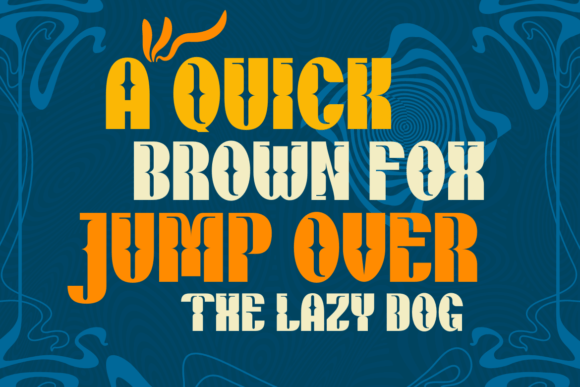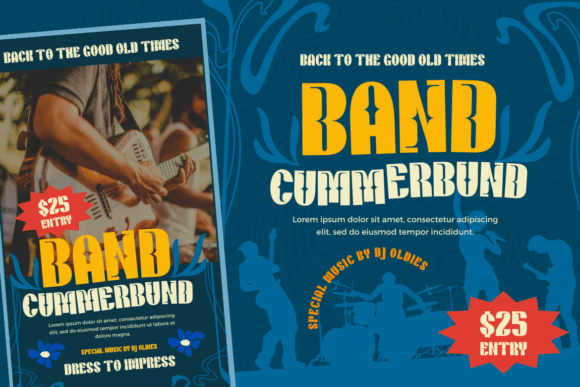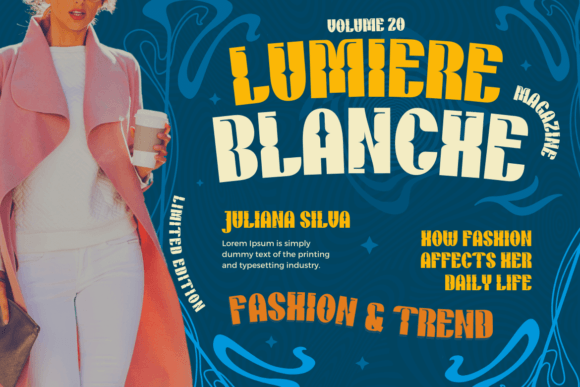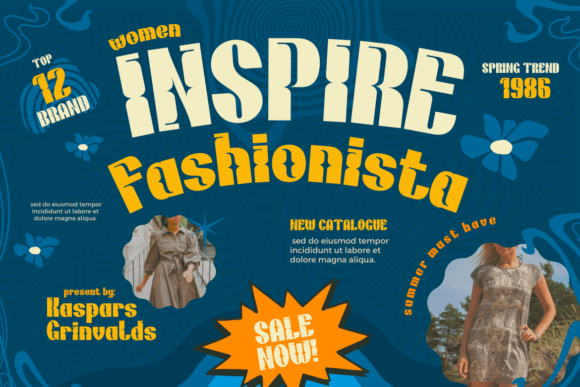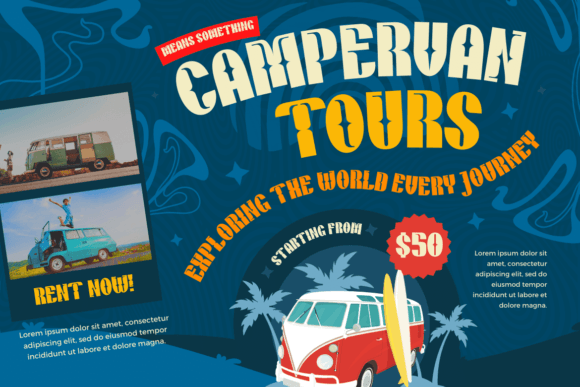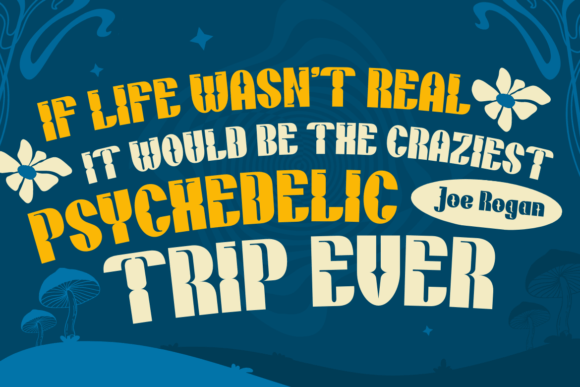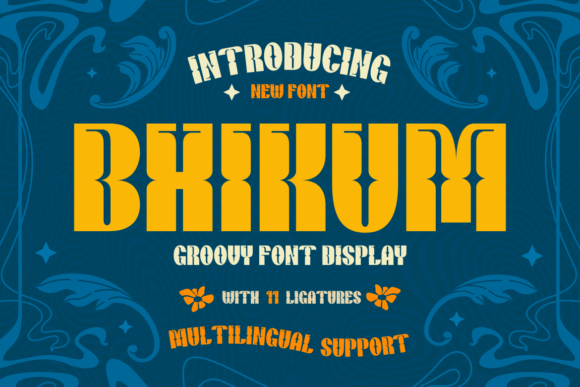
Bhikum Font: A Modern, Stylish, and Timeless Display Font
In the world of typography, fonts play a crucial role in conveying the tone and personality of a brand or design. If you’re a designer or crafter looking for a font that exudes style, sophistication, and a touch of nostalgia, look no further than the Bhikum font. This modern, stylish, and timeless display font is perfect for a wide range of design projects, from logos and posters to branding and advertising materials.
The Inspiration Behind Bhikum Font
The Bhikum font draws inspiration from the design trends of the 1970s, a decade known for its bold, playful, and expressive style. The font’s design is characterized by bold lines, smooth curves, and a groovy, classic feel that’s sure to transport you back to the era of disco, bell-bottom jeans, and retro posters. However, despite its vintage inspiration, the Bhikum font has a timeless quality that makes it suitable for modern design projects.
Key Features of Bhikum Font
So, what makes the Bhikum font so special? Here are some of its key features:
- Bold Design: The Bhikum font features a bold design that’s perfect for making a statement. Its thick lines and smooth curves create a sense of confidence and sophistication.
- Smooth Curves: The font’s smooth curves add a touch of elegance and refinement, making it suitable for a wide range of design projects.
- Unique and Memorable: The Bhikum font has a unique and memorable design that’s sure to set your brand or design apart from the crowd.
- Groovy, Classic, and Fun: The font’s vintage inspiration gives it a groovy, classic, and fun feel that’s perfect for designs that require a touch of nostalgia.
Uses of Bhikum Font
The Bhikum font is a versatile display font that can be used for a wide range of design projects, including:
- Logos: The font’s bold design and smooth curves make it perfect for logos that require a touch of sophistication and elegance.
- Posters: The Bhikum font is ideal for posters that require a bold, eye-catching headline or title.
- Branding: The font’s unique and memorable design makes it suitable for branding projects that require a distinctive and recognizable identity.
- Advertising: The Bhikum font can be used for advertising materials, such as billboards, flyers, and brochures, to add a touch of style and sophistication.
Why Choose Bhikum Font?
So, why should you choose the Bhikum font for your design project? Here are some reasons:
- Timeless Design: The Bhikum font has a timeless design that won’t go out of style anytime soon.
- Versatility: The font is versatile and can be used for a wide range of design projects.
- Unique and Memorable: The Bhikum font has a unique and memorable design that’s sure to set your brand or design apart from the crowd.
- Easy to Read: Despite its bold design, the Bhikum font is easy to read, making it suitable for designs that require a clear and concise message.
In conclusion, the Bhikum font is a modern, stylish, and timeless display font that’s perfect for designers and crafters looking for a bold, elegant, and sophisticated font. Its vintage inspiration gives it a groovy, classic, and fun feel that’s sure to add a touch of nostalgia to your designs. With its bold design, smooth curves, and unique and memorable style, the Bhikum font is an excellent choice for a wide range of design projects, from logos and posters to branding and advertising materials.
So, if you’re looking for a font that will add some cool style to your designs, look no further than the Bhikum font. Its timeless design, versatility, and unique and memorable style make it an excellent addition to any design project.